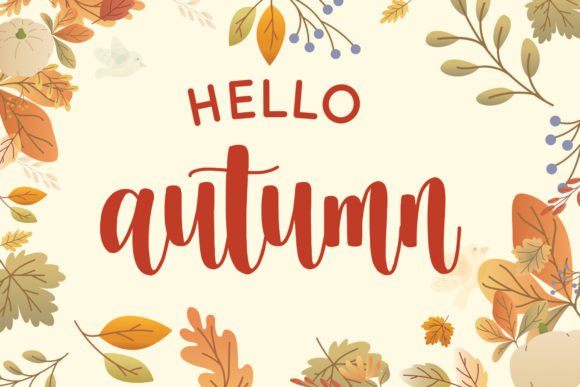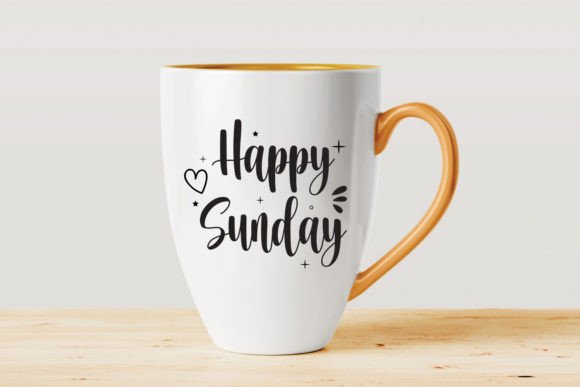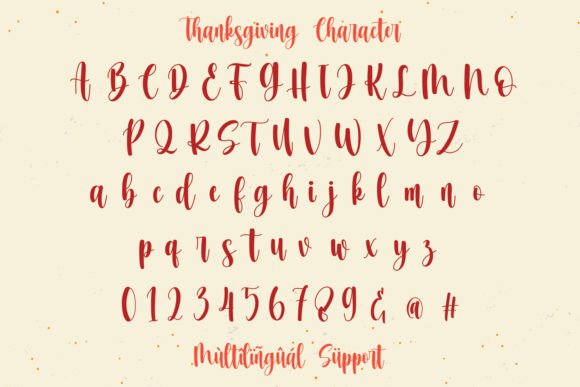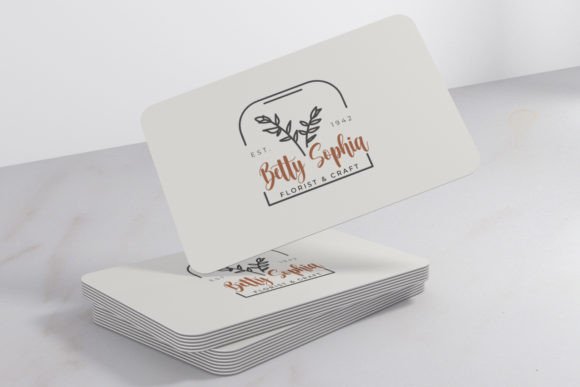
Thanksgiving Font
Thanksgiving Script Font is a charming and whimsical script handwritten designed to evoke a sense of celebration and warmth. This font captures the essence of various festive occasions throughout the year, making it a versatile choice for a wide range of creative projects. With a cute and playful aesthetic, it perfectly embodies the spirit of holidays and seasons like Christmas, winter, spring, autumn, and New Year.